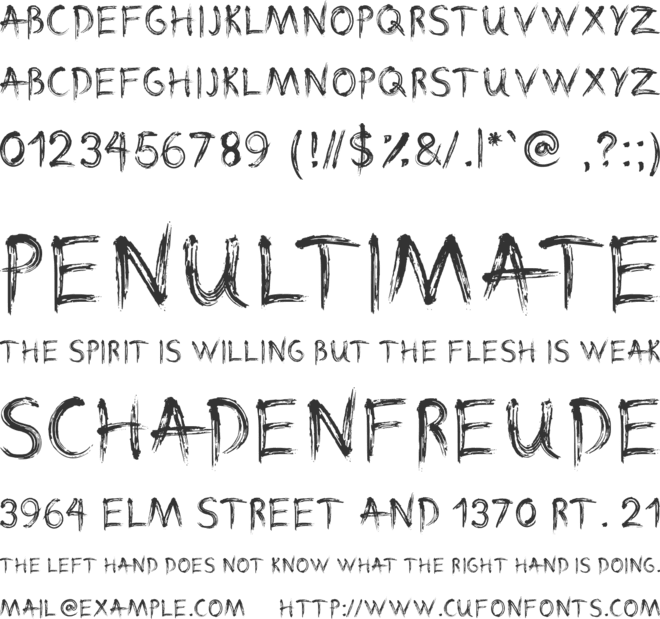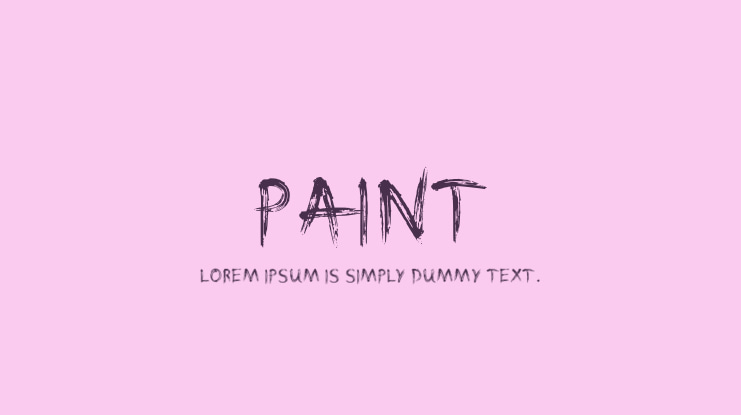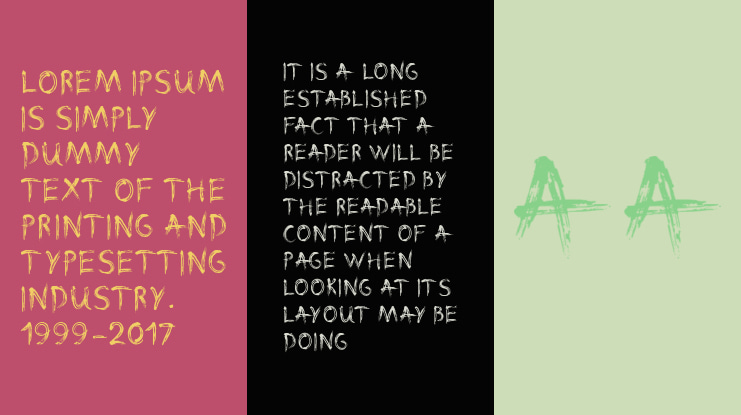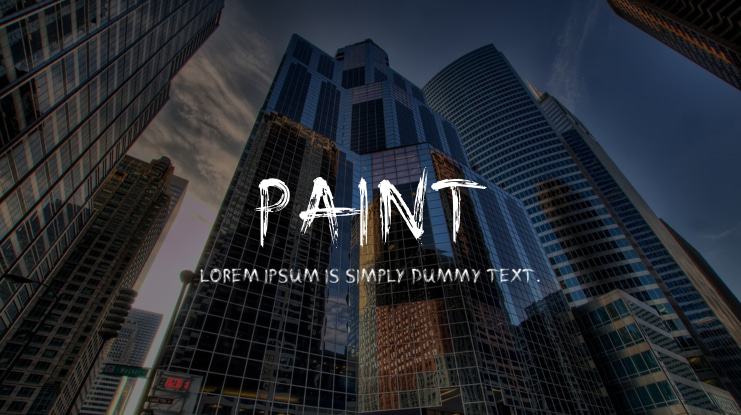
paint Font
Initially, I aimed for a cheerful, painterly, watercolor-like font, but I guess I am creepier than I'd like to admit. My dark side prevailed again, so here is Paint: a dark font designed to resemble paint strokes (bloody or not!).